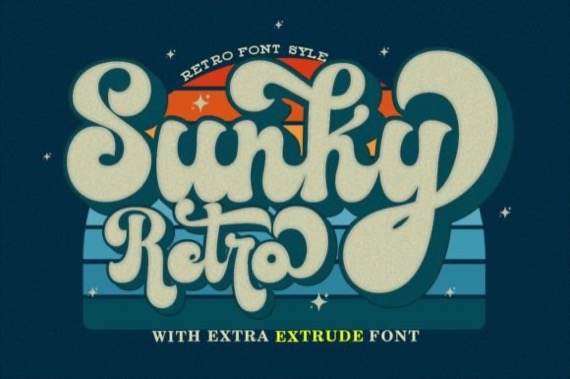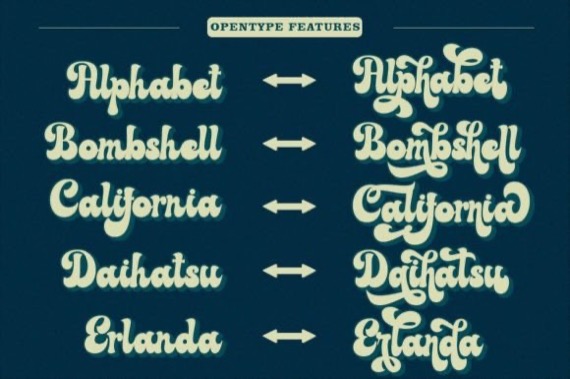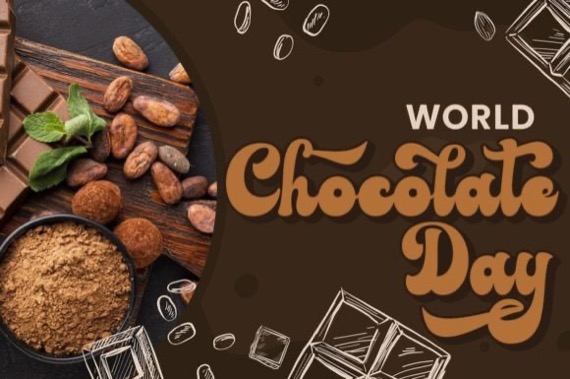
Sunky Retro is an elegant and retro bold script font that was created and released by Gloow Studio. It was inspired by retro typography designs in 70’s.
Sunky Retro is perfectly suitable for logos, and other various formal forms such as invitations, labels, logos, magazines, and more!
Sunky Retro Script Font
Designer, Publisher: Gloow Studio